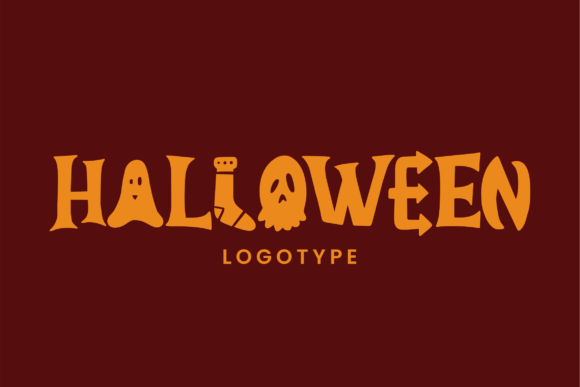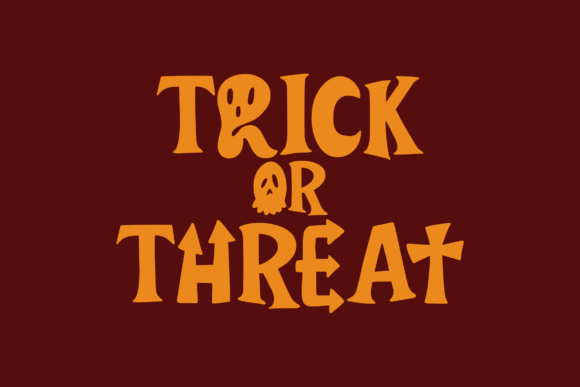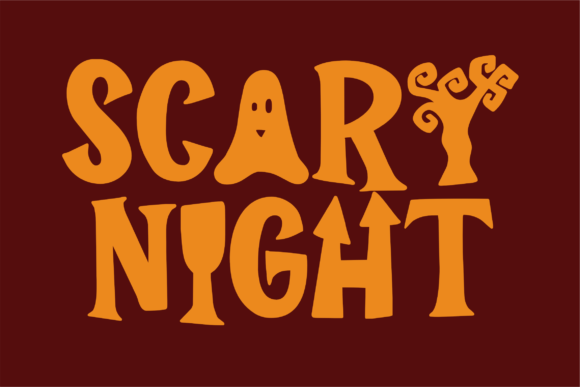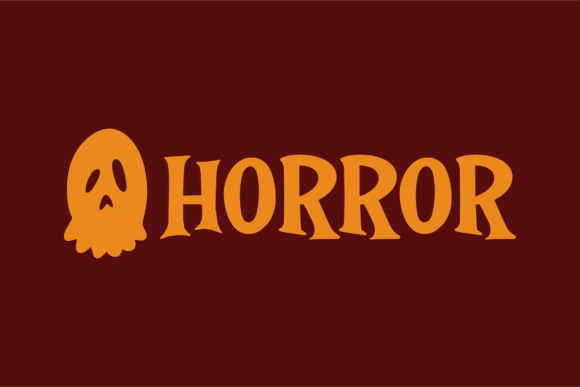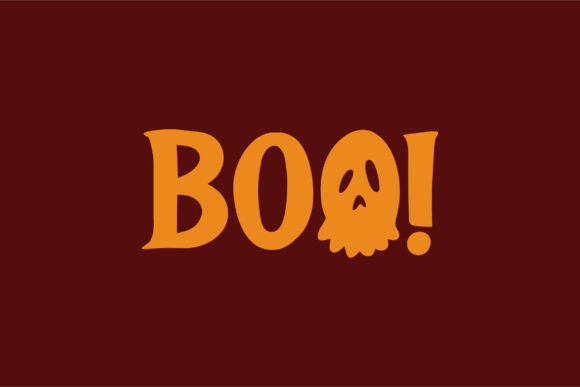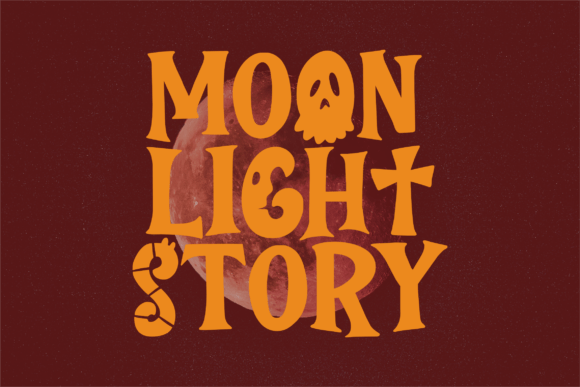
Unleash the Spook: Elevate Your Halloween Designs with Ghoul Scratch Font
As the witching hour approaches, designers and crafters are on the lookout for the perfect typography to add a spooky touch to their Halloween-themed projects. Look no further than the Ghoul Scratch Font, a bold, decorative font that’s sure to cast a spell on your audience. In this article, we’ll dive into the details of this unique font and explore how you can use it to create eye-catching designs that will leave a lasting impression.
The Ghoul Scratch Font: A Spooky yet Playful Typeface
Ghoul Scratch is a one-of-a-kind font designed specifically for Halloween-themed projects. Its bold, decorative letterforms are infused with playful, spooky elements that are sure to delight. The font features ghost faces, bats, spiders, and other Halloween motifs that add a touch of whimsy to your designs. Whether you’re creating posters, invitations, or themed graphics, Ghoul Scratch is the perfect choice to add a dash of spookiness to your project.
Unique Features of Ghoul Scratch Font
- Bold and Decorative: Ghoul Scratch is a bold, eye-catching font that’s sure to grab attention. Its decorative letterforms are perfect for creating statement pieces that will leave a lasting impression.
- Playful Spooky Elements: The font features playful spooky elements such as ghost faces, bats, and spiders that add a touch of whimsy to your designs.
- Vibrant Orange Color: The font’s vibrant orange color is perfect for creating contrast with a dark background, making it ideal for Halloween-themed designs.
- Versatile: Ghoul Scratch is a versatile font that can be used for a variety of projects, including posters, invitations, themed graphics, and more.
Tips for Using Ghoul Scratch Font
To get the most out of Ghoul Scratch, here are some tips to keep in mind:
- Pair with Dark Backgrounds: The font’s vibrant orange color is perfect for creating contrast with a dark background. Try pairing it with a black or dark gray background to make your design pop.
- Experiment with Sizes: Ghoul Scratch is a bold font, but you can experiment with different sizes to create visual interest. Try using a larger size for headings and a smaller size for body text.
- Add Texture and Patterns: To add an extra layer of depth to your design, try adding texture and patterns. A spider web pattern or a texture that resembles a tombstone can add a spooky touch to your design.
Inspiration for Ghoul Scratch Font
Still looking for inspiration? Here are some ideas for using Ghoul Scratch Font:
- Halloween Party Invitations: Create spooky invitations that will set the tone for your Halloween party. Use Ghoul Scratch to add a bold, eye-catching touch to your design.
- Poster Designs: Create eye-catching posters that will grab attention. Ghoul Scratch is perfect for creating bold, decorative posters that will leave a lasting impression.
- Themed Graphics: Use Ghoul Scratch to create themed graphics such as social media graphics, blog posts, and more. The font’s playful spooky elements are sure to delight your audience.
In conclusion, Ghoul Scratch Font is a unique and versatile font that’s perfect for Halloween-themed projects. Its bold, decorative letterforms and playful spooky elements make it a must-have for designers and crafters. With its vibrant orange color and contrasting dark background, Ghoul Scratch is sure to add a spooky touch to your designs. So why wait? Unleash the spook and elevate your Halloween designs with Ghoul Scratch Font.